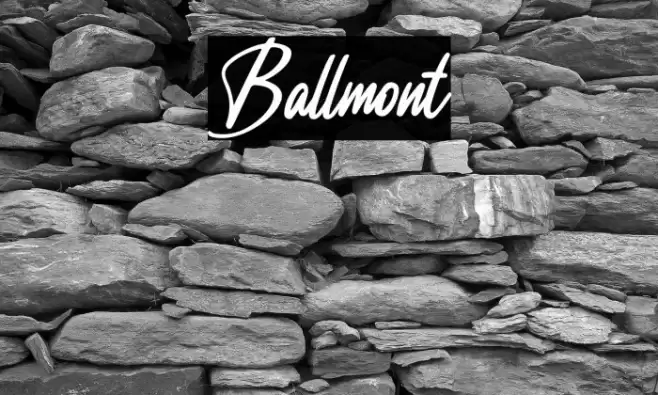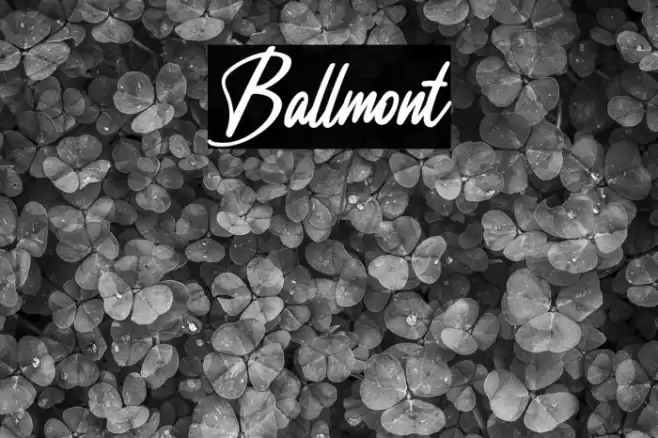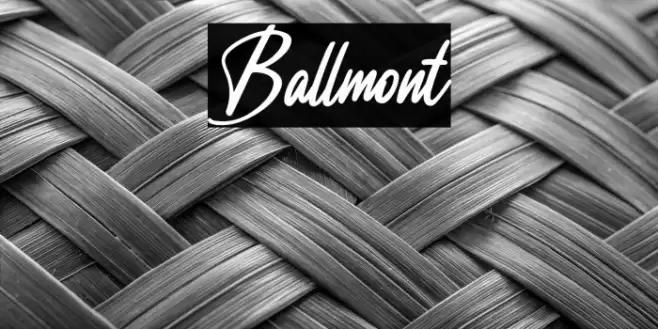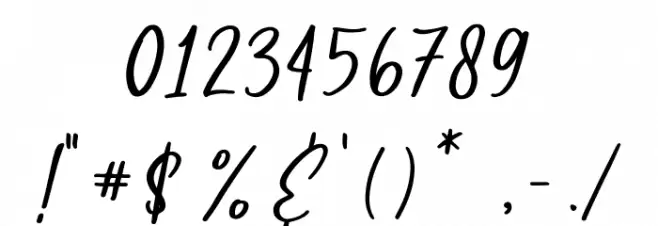
Ballmont Font
Ballmont Description
This font features a dynamic and fluid script style, characterized by its elegant and flowing letterforms. The uppercase letters exhibit a graceful slant with smooth curves, while the lowercase letters maintain a consistent rhythm and balance. The numerals are designed with a similar flair, ensuring readability while maintaining the overall aesthetic. Special characters are crafted with attention to detail, complementing the script's sophisticated appearance. The font's design is suitable for projects that require a touch of elegance and personality.
A dynamic and fluid script font with elegant, flowing letterforms from Uncategorized fonts.
- Proposed Projects: Ideal for wedding invitations, branding, greeting cards, and elegant packaging designs.
- Overall Style: Elegant
- Use Case: Logos, Invitations, Branding